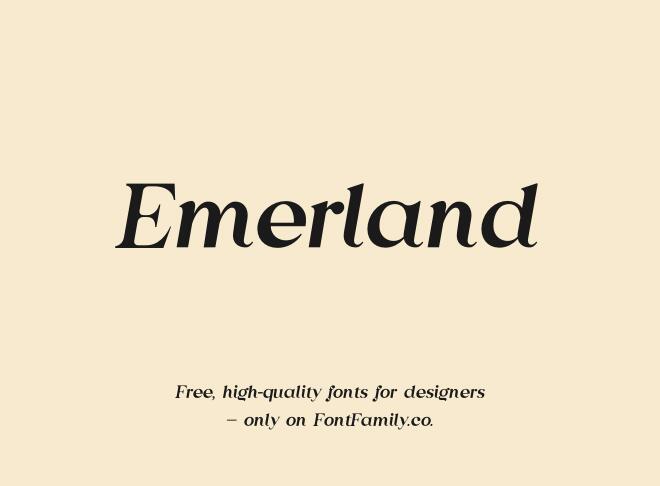
Emerland Font
Emerland Font is a modern, elegant typeface that combines handwritten and decorative elements into a unique design. It was created by the Creative Foundry in 2020 and is free for personal use. With its sleek lettering and eye-catching design, Emerland Font is perfect for branding projects, logo designs, product packaging, and stationery. It brings a touch of elegance to any design and stands out for its unique style. Compared to other fonts, Emerland Font offers a certain level of sophistication and creativity that makes it a great choice for designers looking to make a statement. Its modern, yet decorative style makes it versatile for a variety of design projects. From professional branding to personal projects, Emerland Font adds a touch of elegance and uniqueness.